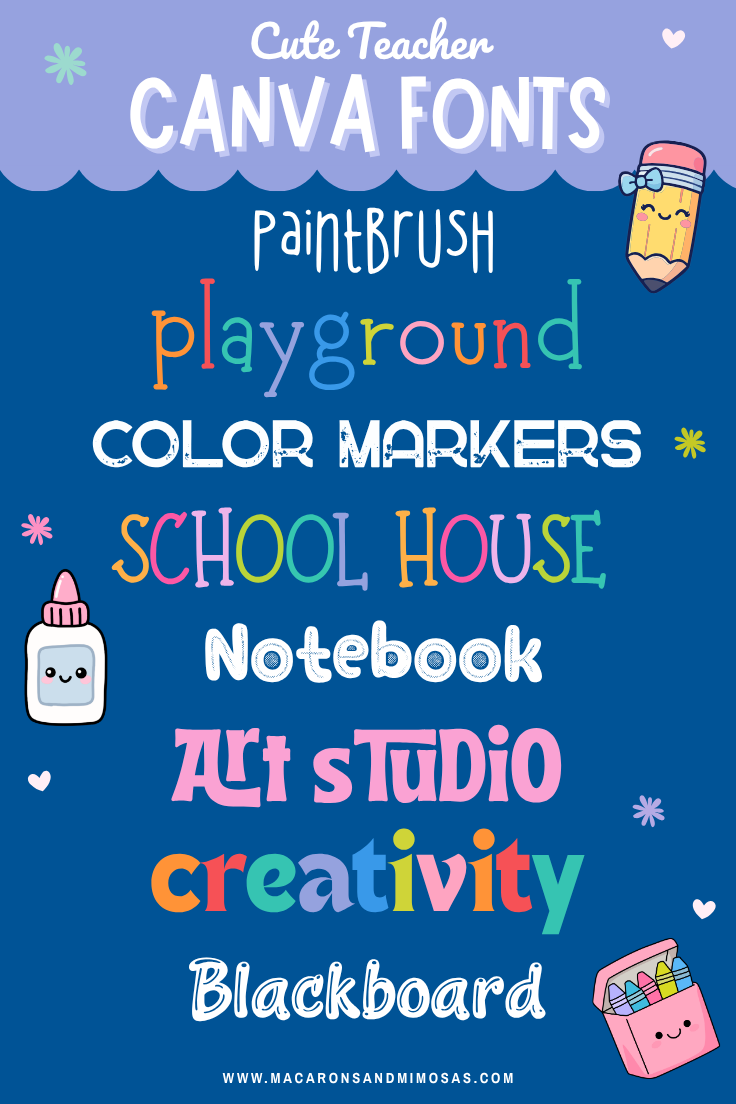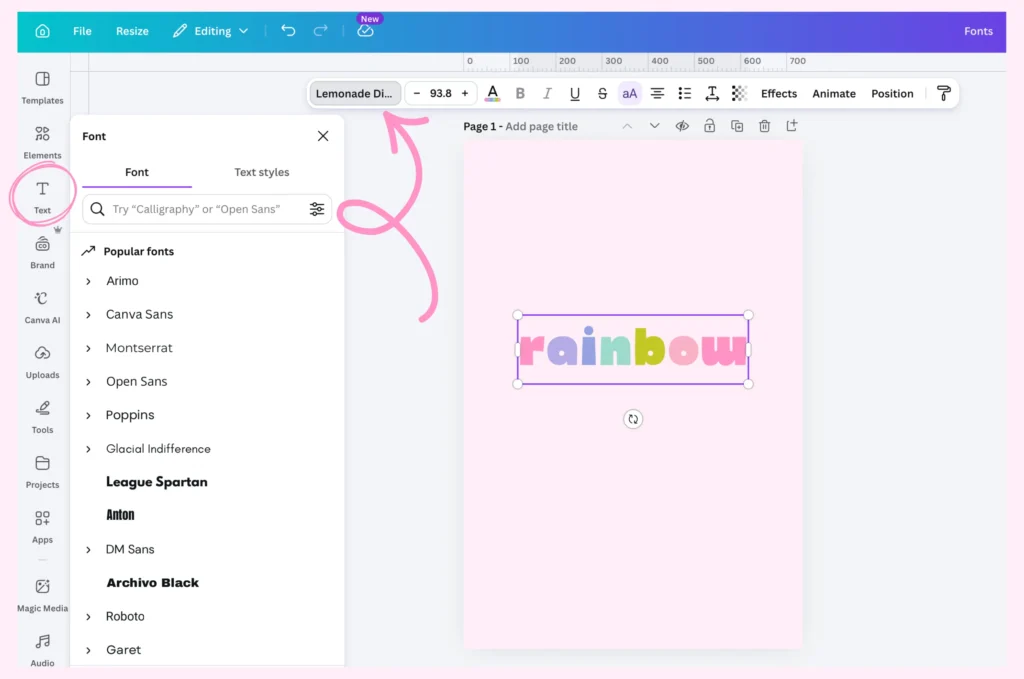
The Best Cute, Playful, Dreamy Canva Fonts
Okay so… I have a font problem. Like, an actual problem. I will be knee deep in a client project, minding my own business, and then I’ll see one gorgeous cute Canva font and lose forty five minutes I did not have. If that’s you too, welcome home.
I get asked constantly what fonts I use for my own branding and client work, and honestly? It’s always these. Not the “trending” ones everyone’s using this week. The ones that actually hold up, look adorable at every size, and don’t make your design look like every other Pinterest board out there. So I rounded them all up for you. You’re welcome in advance.
Playful Canva Fonts For When You Want Personality
These are the fun, bouncy, this-brand-does-not-take-itself-too-seriously fonts. If your brand feels like confetti and a little bit of chaos (the good kind), start here.
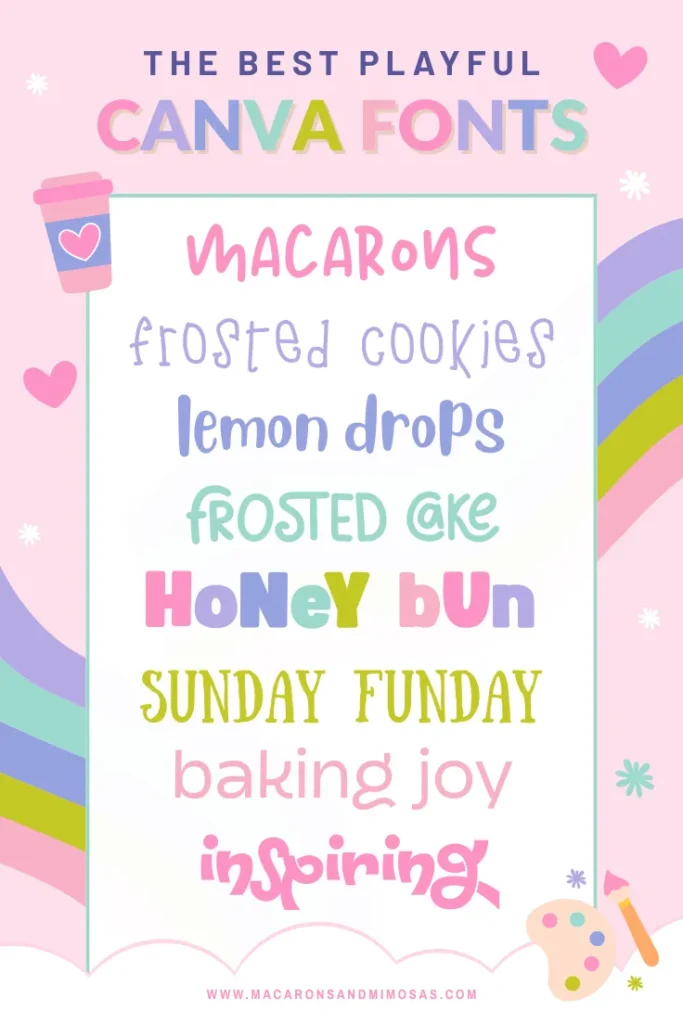
New Sum Playful – bold, rounded, a little wobbly in the best way. This is your “stop scrolling” header font.
LJ Studios – soft and looped, like it was piped straight out of a bakery box. I use this one more than I’d like to admit.
Blueberry – a chunky font with real bounce to it. Gorgeous as a standalone accent word.
Feel Free Playful – clean, rounded, unique whimsical without trying too hard!
Funtastic – the main character font. Bold, blocky, loud in the best way. This one wants to be the biggest thing on the page, let it.
Sunday – chunky all caps with a retro, hand cut feel. Basically made for stickers and badges.
Dingos – light, loopy, effortless. Your soft launch font, for when you want personality without shouting about it.
Hangout – thick, marker style handwritten font with SO much character in that tail. One word, big impact.
Dreamy, Cute Canva Fonts For a Softer Feel
If the playful list is confetti, this one’s golden hour. Soft, whimsical, a little storybook. These are my go tos when a brand needs to feel gentle instead of loud.
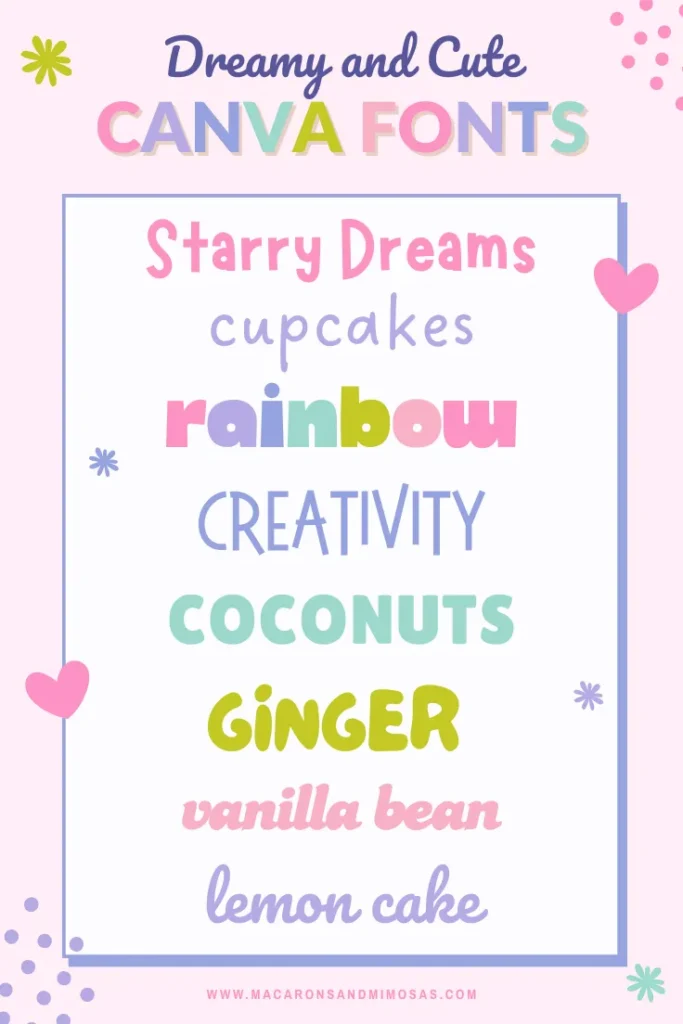
MaryKate – a flowing font with total fairytale energy. Gorgeous for quote graphics.
Dreaming Outloud – delicate and thin, feels handwritten in the gentlest way possible!
Lemonade Display – bubbly, bold, rounded edges. Main character energy but make it soft.
Sweet & Salty – all caps and hand lettered with just enough wobble to keep it from feeling stiff. Love this one.
Lilita One – chunky and rounded, playful without tipping into childish. My go to everyday header font, honestly.
Le Petit Cochen – bold, punchy, a little spicy (pun very much intended). Small but mighty in a headline.med event.
Candice – soft and slanted, feels warm and a little vintage. Like a font that’s been in your family forever.
Pacifico – loose, casual, looks like it was written with a paint marker. Friendly, approachable, never fails.
Cute Playful Canva Fonts Are Giving Main Character
Think less confetti, less golden hour – and more the girl who shows up late, looks incredible, and somehow still gets everything done. These fonts have range. 🎀
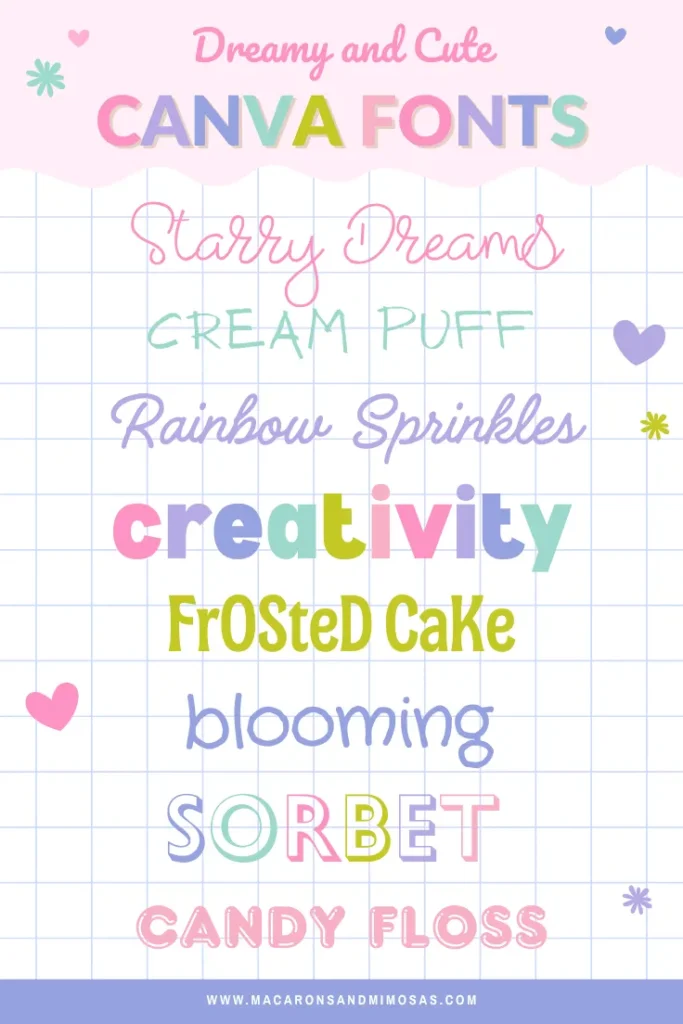
Heavenfield – wispy, romantic, and a little ethereal. If this font were a person, she’d be twirling in a field somewhere and absolutely not checking her emails.
Antio – all caps, zero chaos, completely in control. The font that shows up to the meeting early and still looks better than everyone else.
Handelson Three – bouncy and fun without being chaotic about it. Like bubblegum but make it design school.
Bernoru SemiCondensed – bold, rounded, and giving main character. The font that walks into the room and everyone just knows.
CDA Me Ly Display – chaotic in the best way. Mixed case, handcrafted vibes, and absolutely refuses to be boring. We love her for it.
Crafty Girls – casual, a little wobbly, and somehow always cute. Basically the font version of showing up in sweats and still pulling it off.
Gill Sans Light – the quiet one in the group chat who somehow always says the most important thing. Clean, calm, completely dependable.
Frankfurter Highlight – loud, retro, and not apologizing for any of it. This font does NOT whisper. 🎀
Cute Fun Canva Fonts for Teachers
Teachers, this one is for you. These are the best Canva fonts for classroom materials, TPT sellers, and teacher brands that want their designs to feel as fun and creative as the lessons they are building. 🍎
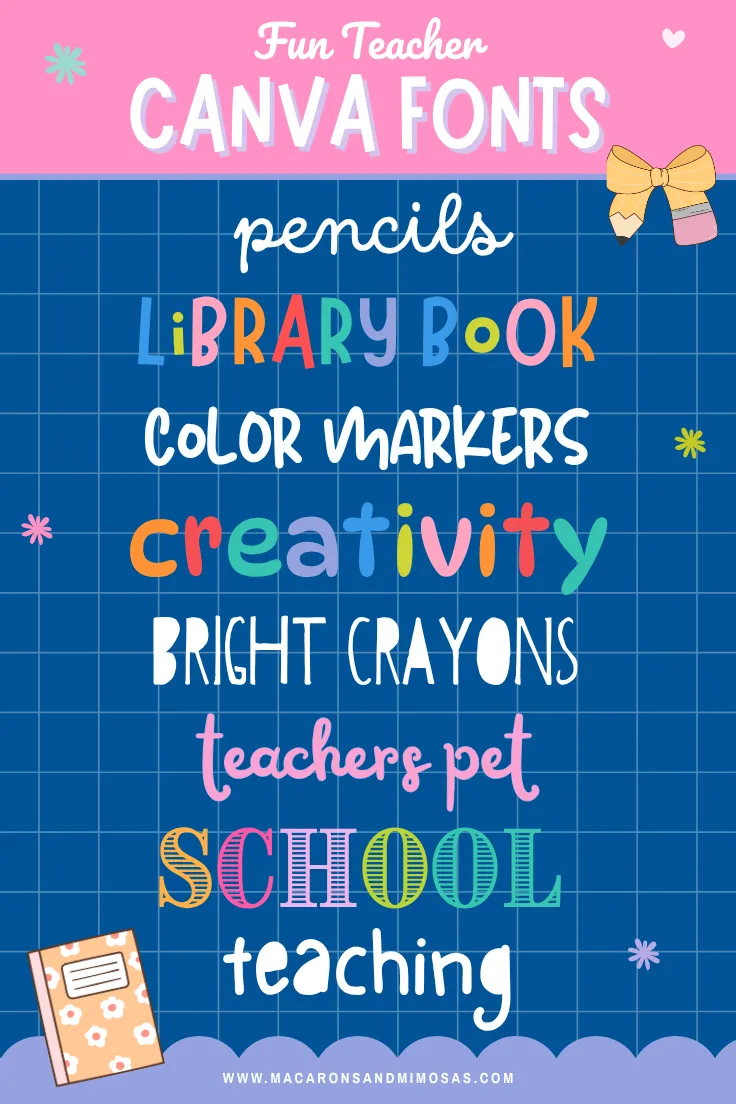
Dreaming Outloud Script – — Soft, wispy, and a little magical. The perfect Canva font for teacher worksheets, bulletin board titles, and TPT covers that need a warm, handcrafted feel.
Marykate – Flowing, fairytale-pretty, and totally versatile. A go-to cute Canva font for teacher brands that want polished and whimsical without trying too hard.
New Sun Playful – Bold, bouncy, and impossible to ignore. Your back to school graphics just called and they want this font immediately.
Dynapuff – Chunky, rounded, and radiating good vibes. Cheerful enough for kindergarten, cool enough for middle school. Nobody is ever mad at Dynapuff.